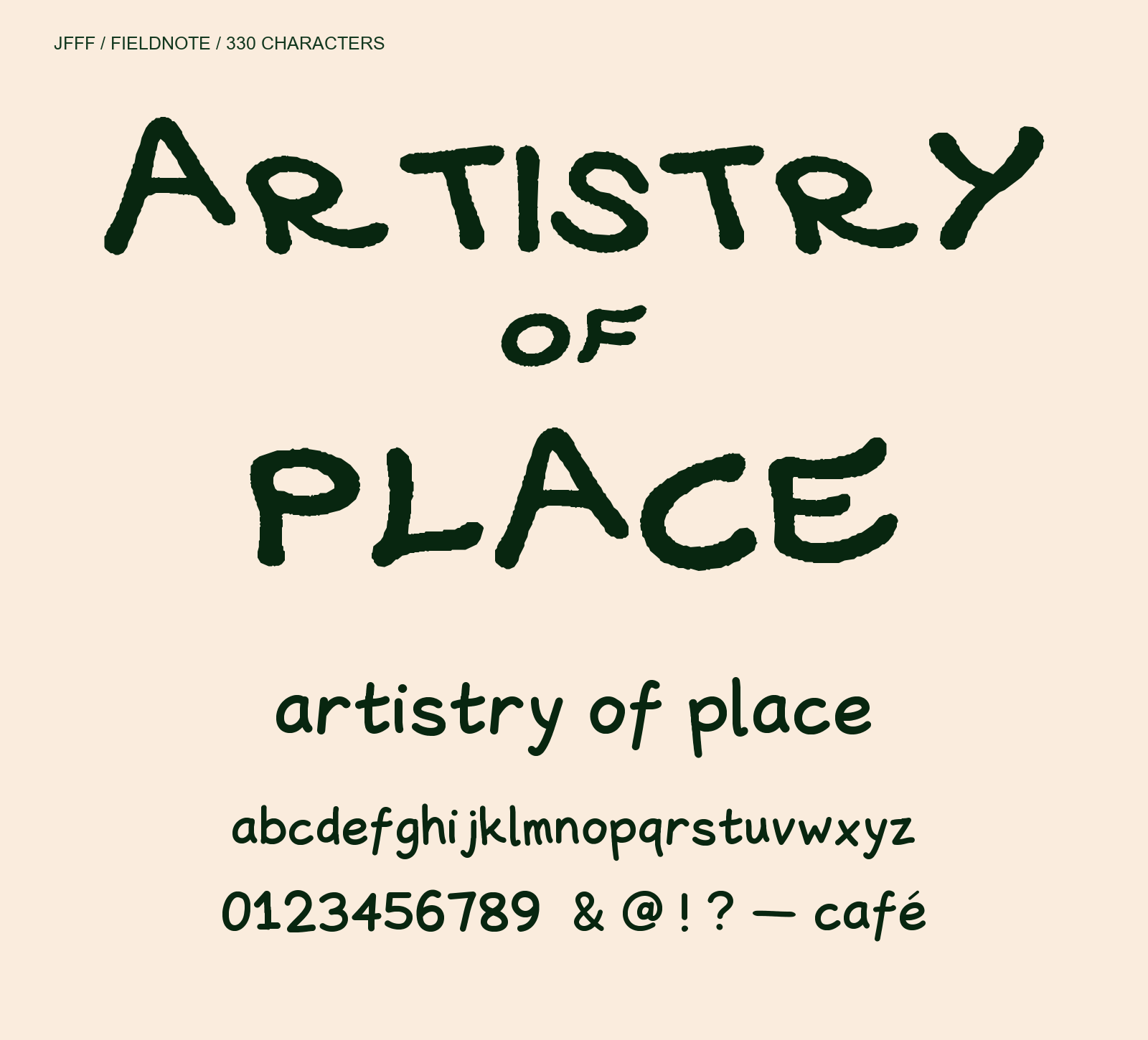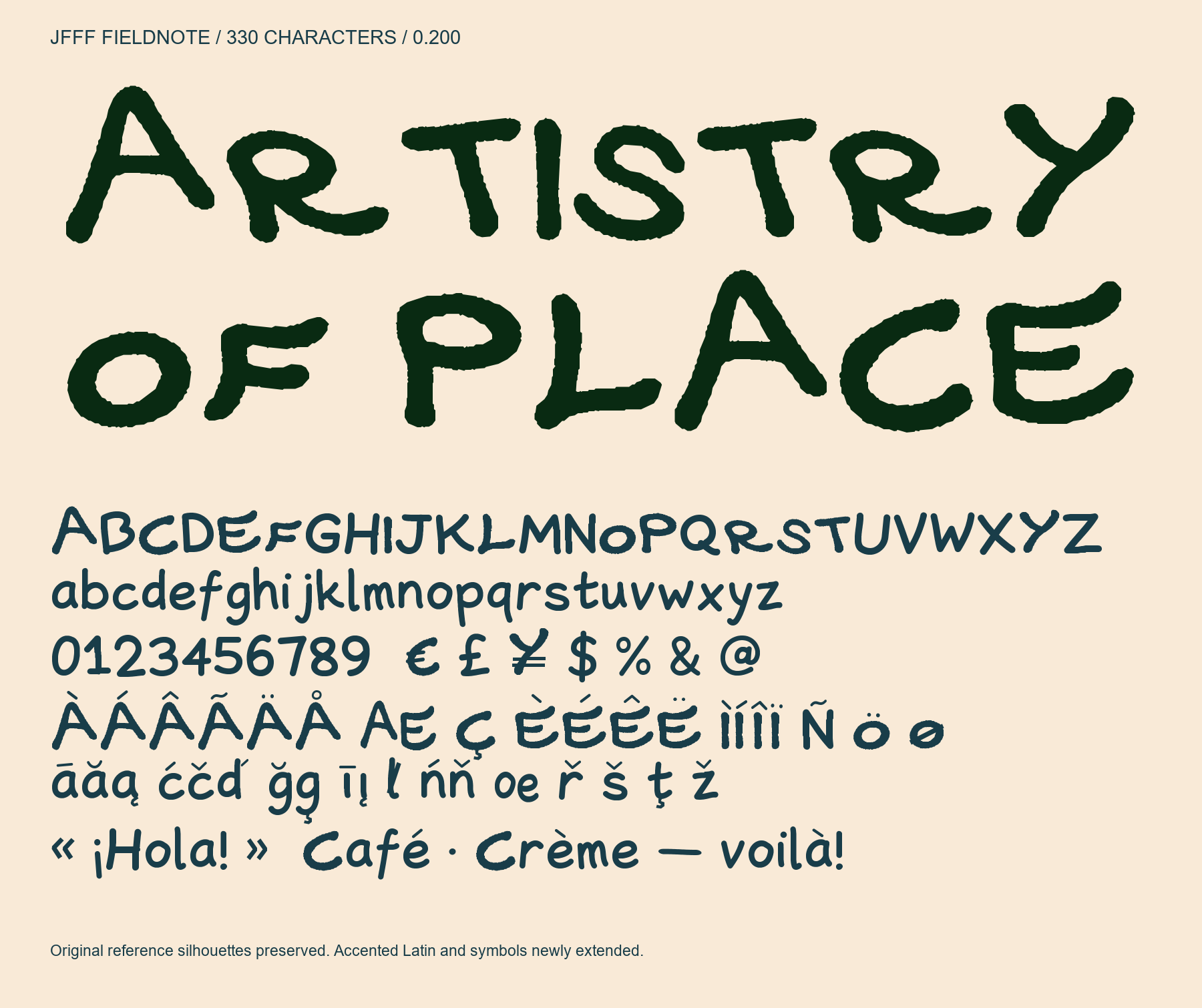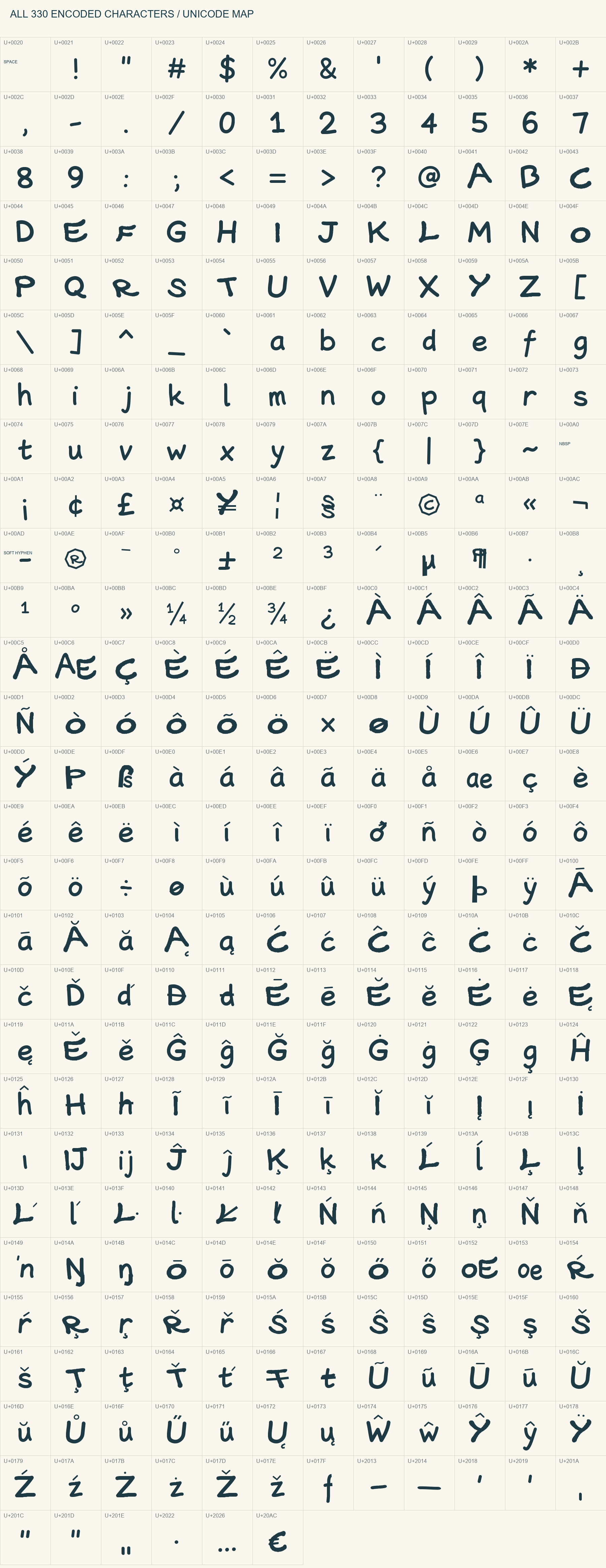
FIELDNOTE handwritten brush font: ARTISTRY OF PLACE, with gently crooked lowercase.
A little crooked. Full of character. FIELDNOTE is a handwritten brush display font with rounded stroke endings, gently bending lines and an uneven rhythm. Version 0.200 adds subtle differences in letter angle, width, height and baseline for a relaxed, hand-lettered feel. Use it for posters, packaging, personal notes and short creative headlines. 330 encoded characters and 331 glyphs: printable Basic Latin, Latin-1, Latin Extended-A and 11 extra punctuation characters. Start at 36 pt or 48 px. Download includes TTF and SIL OFL 1.1. Accented Latin uses precomposed characters; Hangul and independent combining marks are not included. Repeated letters keep the same shape. Design preview; native editing-app installation and print workflows have not been verified.